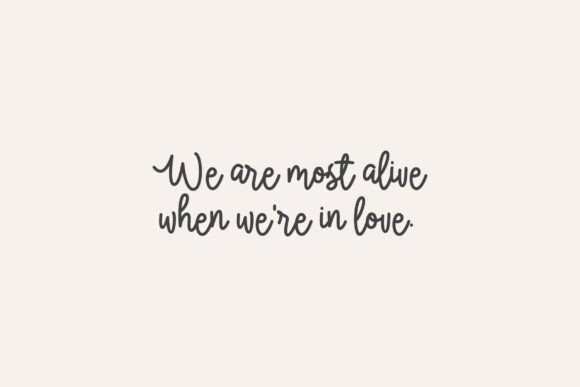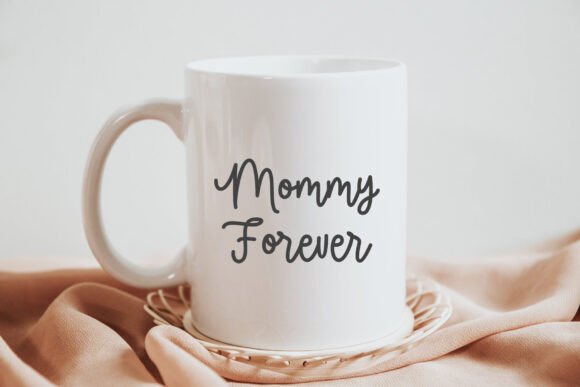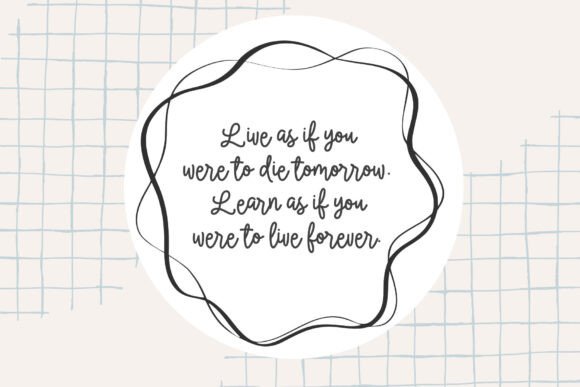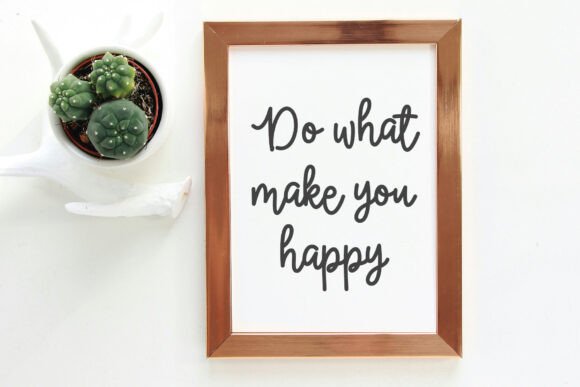
Introduction to Lemon Garlic Font
Lemon Garlic is a charming and beautiful script font, that is perfect for casual branding, quotes, social media, web, greeting cards, trendy prints, fun wedding stationery, and various designs.
Key Features of Lemon Garlic Font
Why Choose Lemon Garlic Font?
Lemon Garlic Font offers exceptional quality and versatility, making it a valuable addition to your design toolkit. Whether you’re creating for personal projects or commercial use, Lemon Garlic Font delivers professional results.